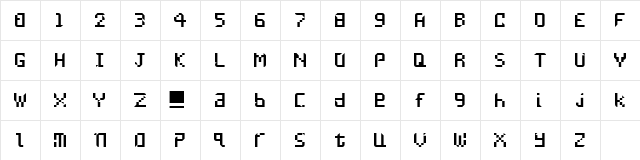
UNDATAME Regular
| Foundry | Vaughn Royko |
| Designer | Vaughn Royko |
Design Context for UNDATAME Typeface
UNDATAME offers clean, dependable letterforms without strong stylistic allegiance, making it a practical choice for designers who need flexibility.